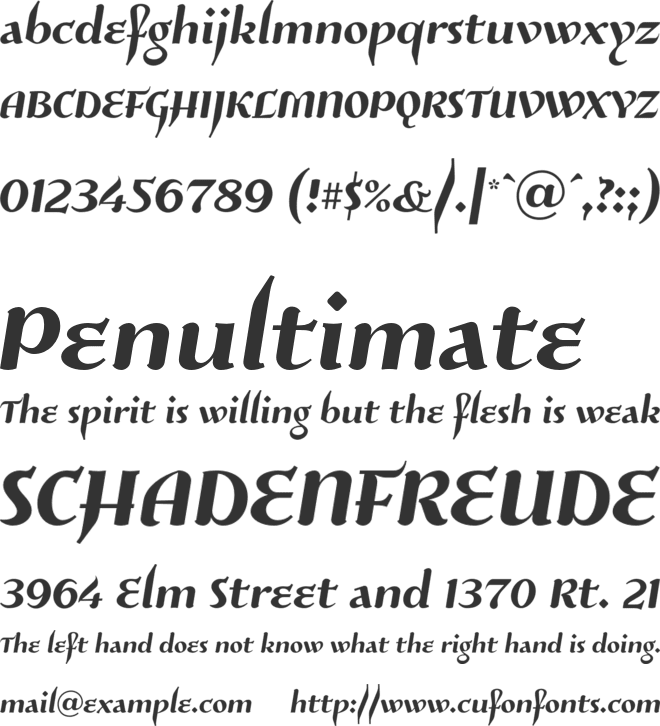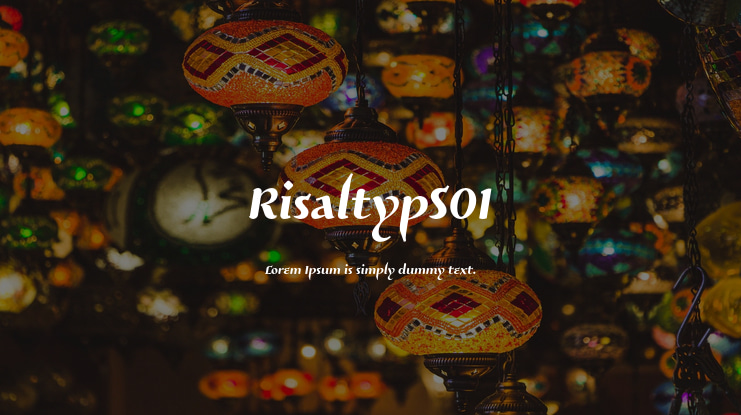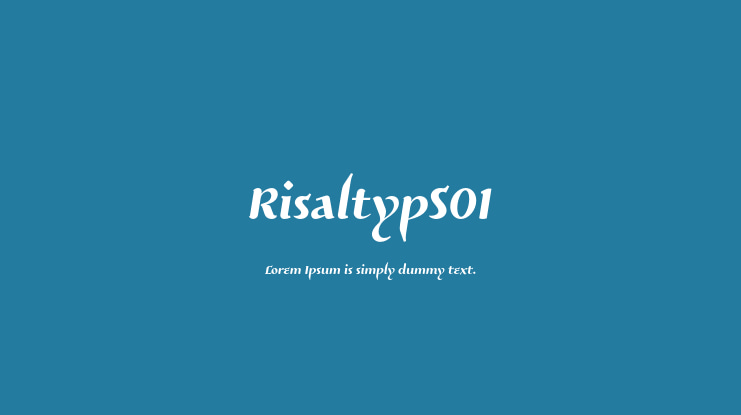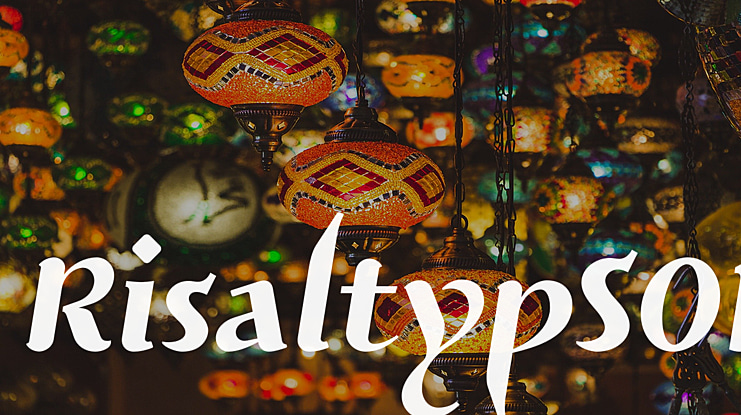
RisaltypS01 Font Family
gluk
Dec­o­ra­tive italic font Risaltyp with Con­tex­tual alter­nates, Lig­a­tures and Styl­is­tic set S01 (optional e). Addi­tional RisaltypS01 with styl­is­tic set S01 as default.